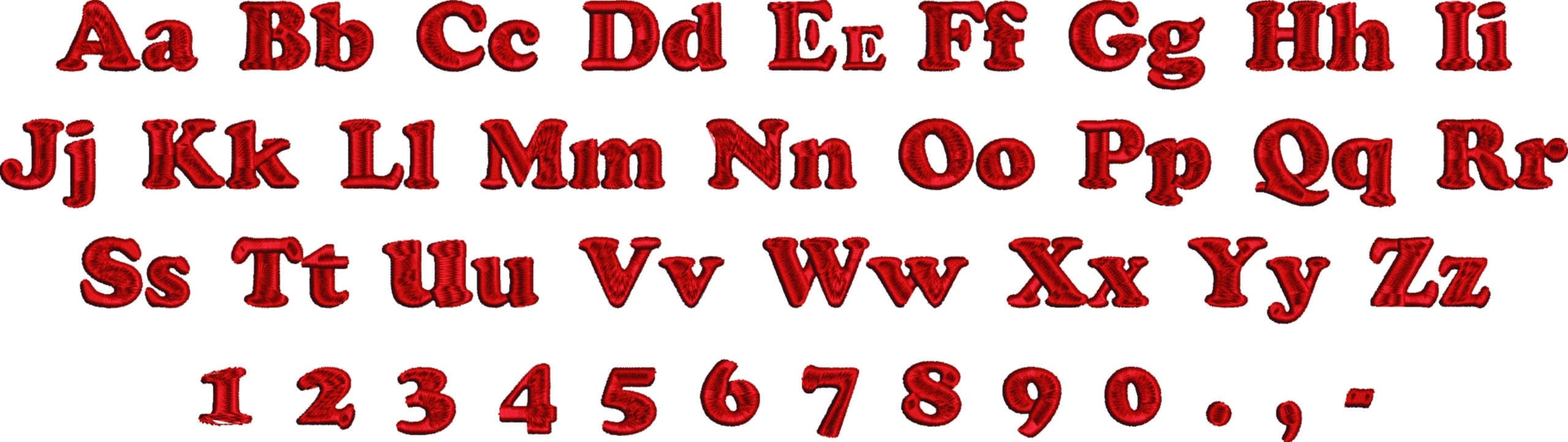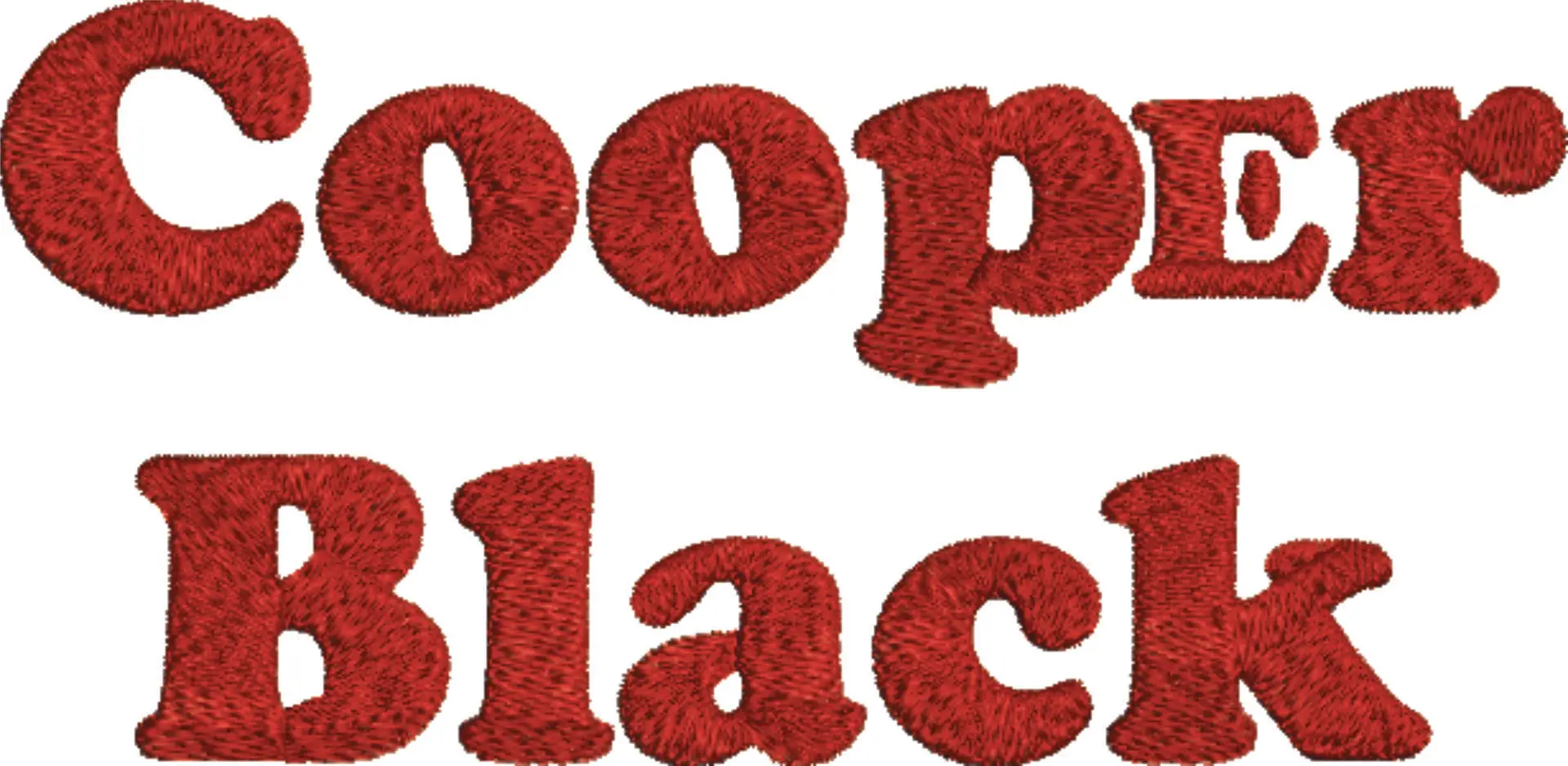
A bold Cooper Black embroidery font set with chunky retro curves that stands out clearly on sweatshirts, totes and statement gifts.
Bring retro weight to your stitching with this Cooper Black embroidery font set, built around the same bold, rounded serif look shown in the sample lettering. The chunky letterforms give names, short phrases and monograms a confident, graphic presence that suits makers who want text to be part of the design rather than a quiet add-on. It is a strong choice for anyone personalising casual pieces, team garments or gifts with a vintage-leaning, headline-style alphabet.
This style looks especially good across sweatshirt fronts, hoodie backs, canvas tote bags and the chest of sturdy T-shirts, where the thick strokes read cleanly from a distance. On denim, twill and sweatshirt fleece, the rounded serifs help the wording feel full and solid instead of spindly. If you want lettering with that unmistakable Cooper Black character—softly curved, heavy-set and a little bit retro—this set gives your words real visual presence.